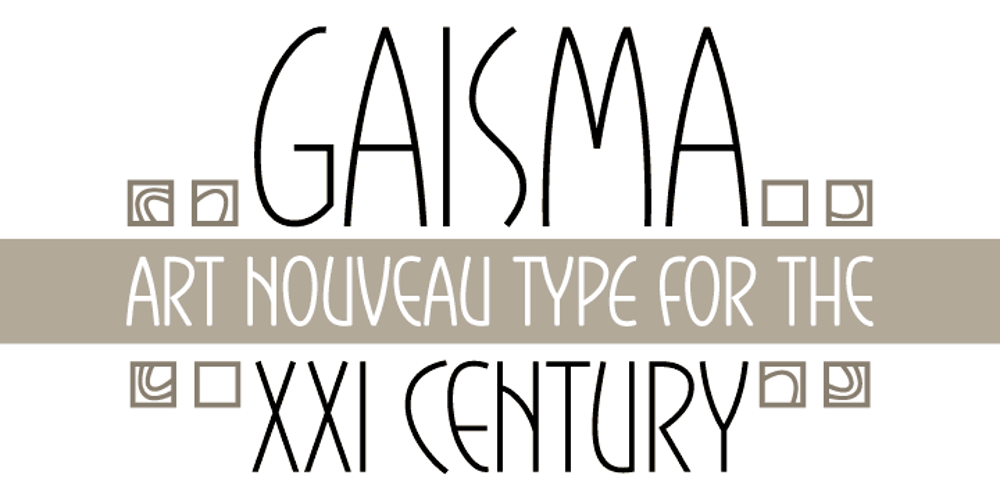
Gaisma
Gaisma font
Gaisma Font Family was designed by Kristians Šics and published by Lamatas un Slazdi. Gaisma contains 4 styles and family package options. Art Nouveau typeface “Gaisma” (“Light” in Latvian) contains characters for all the European languages, Cyrillic and modern Greek as well as a huge set of contextual and stylistic alternates and historical characters to replicate the texts of the era. It draws inspiration from Vienna Secession movement and Nordic National Romanticism. The work on the design started as drawings of several characters for the graphic standard for the Jugendstil museum in Riga. To use it more effectively and to get acquainted with the possible stylistic sets download the Gaisma specimen in pdf format.